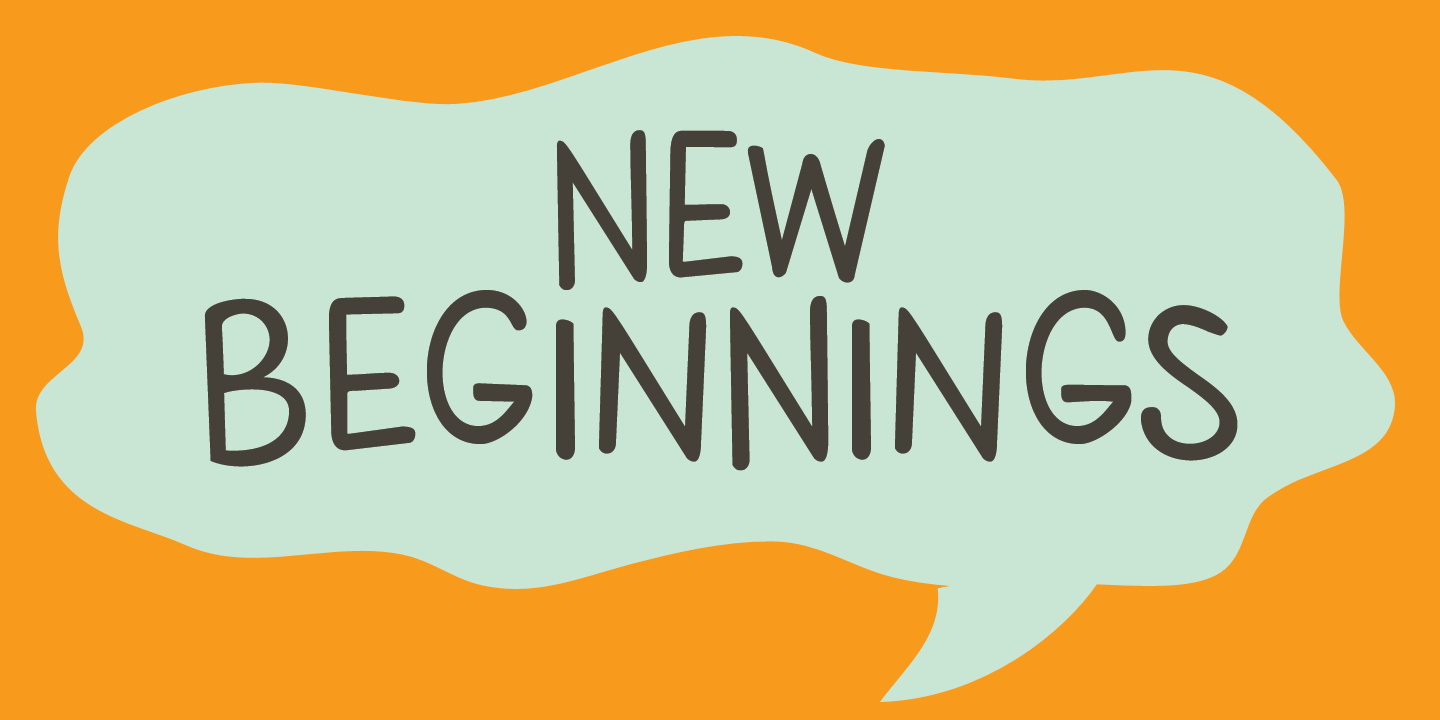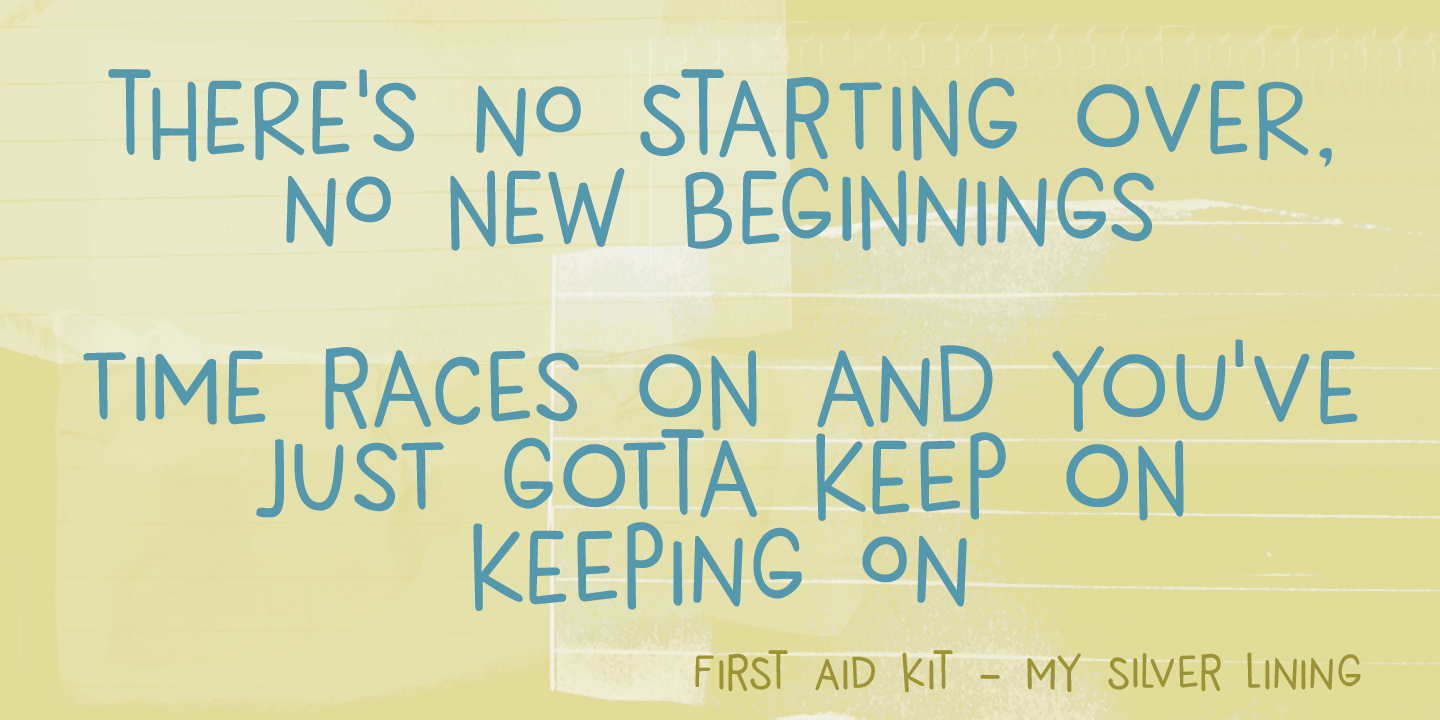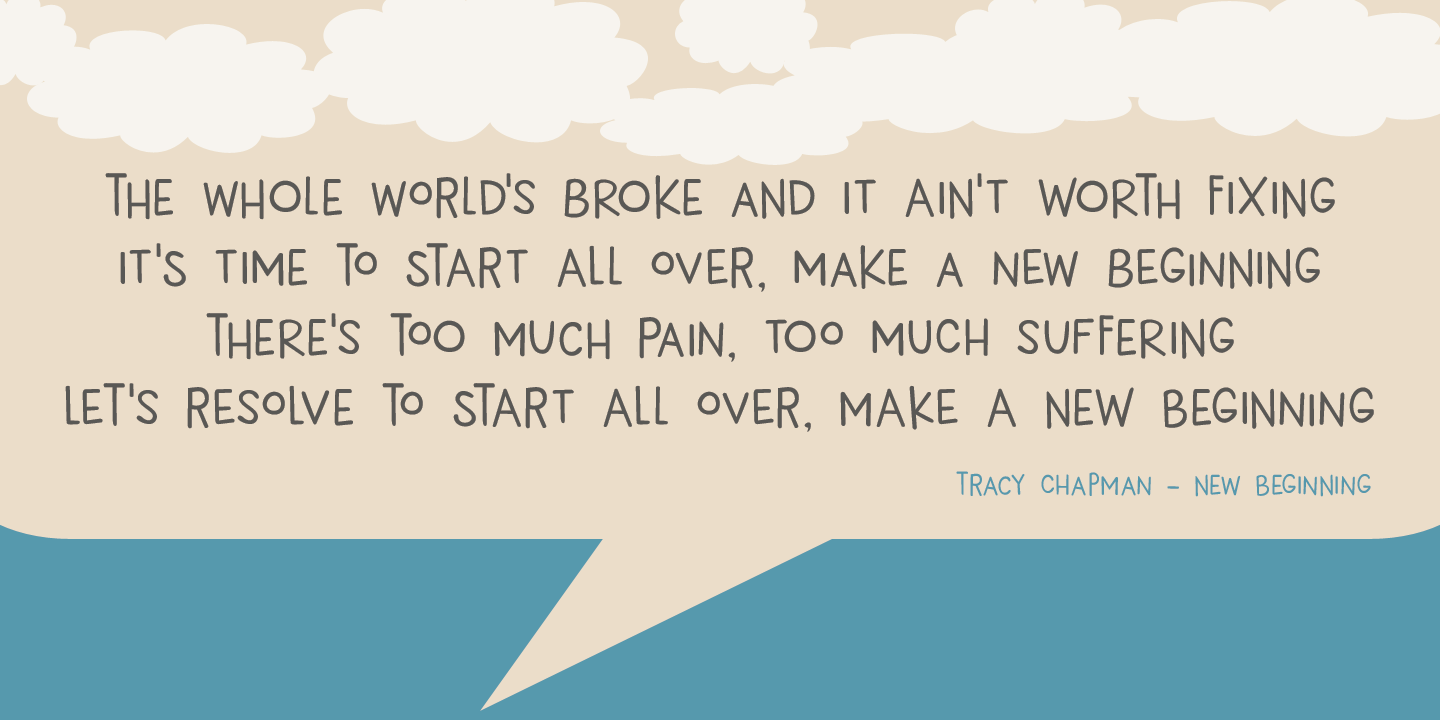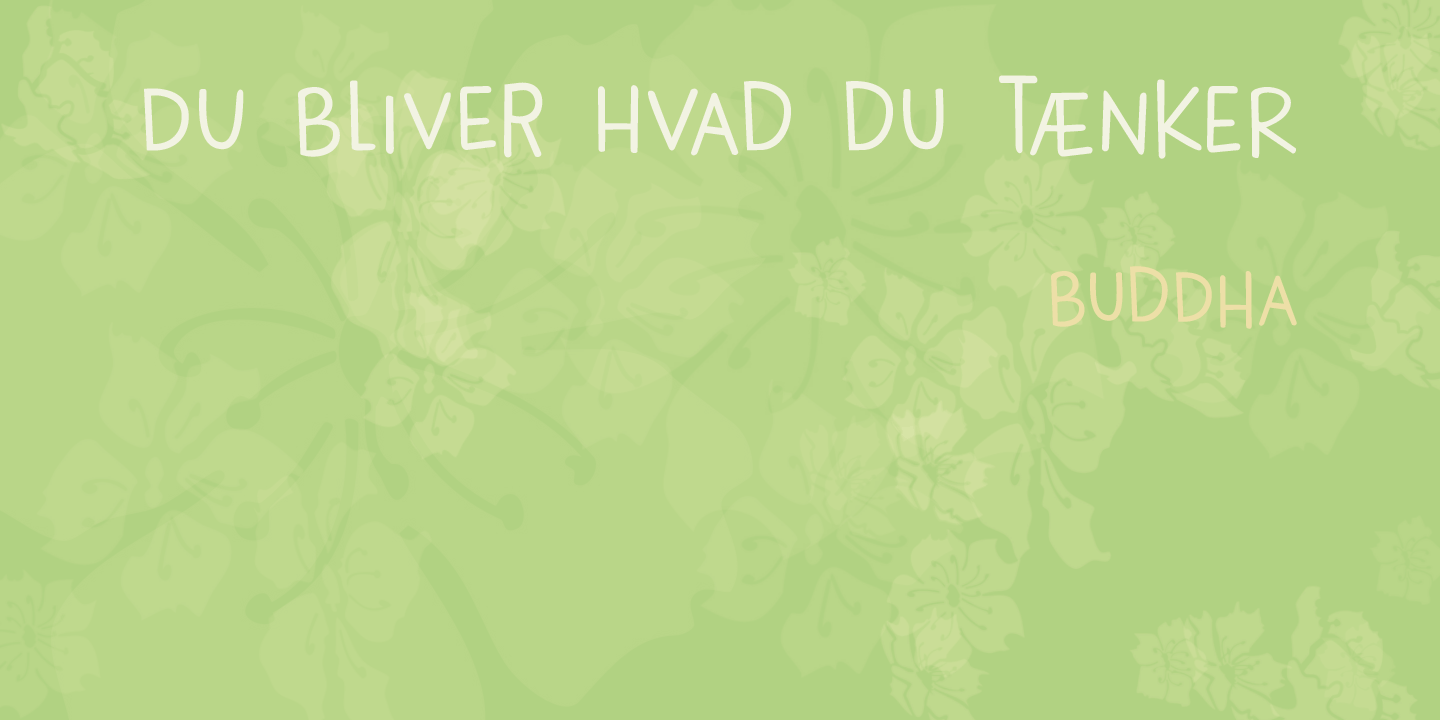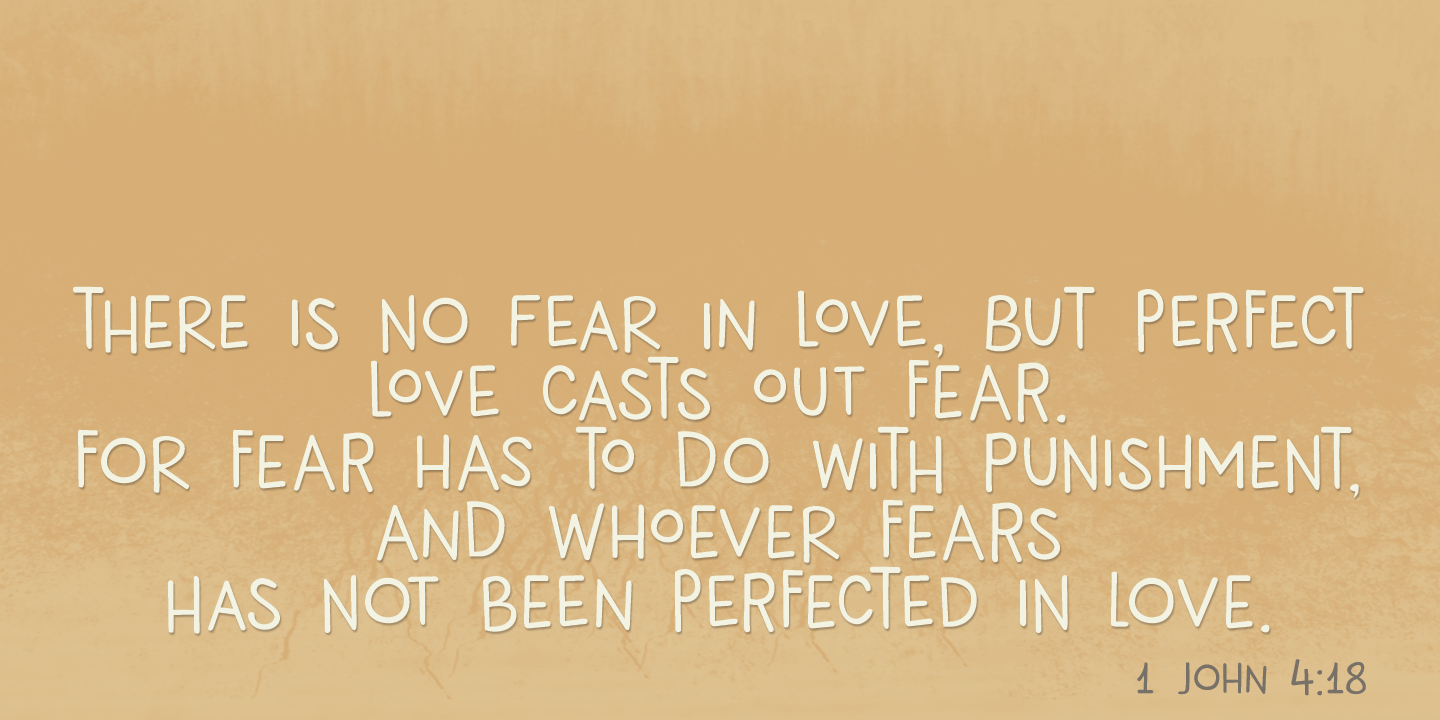
New Beginnings
A new year has begun, new resolutions have been made. Fresh ideas are popping up and a new life is about to begin. All in all, I figured New Beginnings was the perfect name for my first font in 2016.
It is a very happy, very original typeface. All caps, but upper and lower glyphs differ and can be interchanged. New Beginnings font can be used virtually anywhere, but children's books and product packaging spring to mind. Comes with an abundance of diacritics.